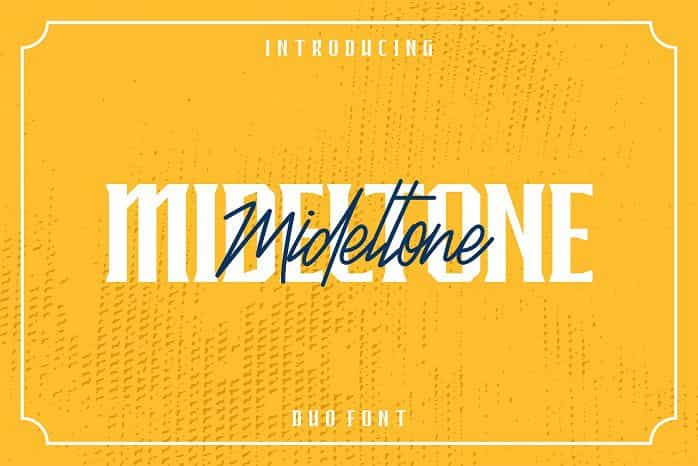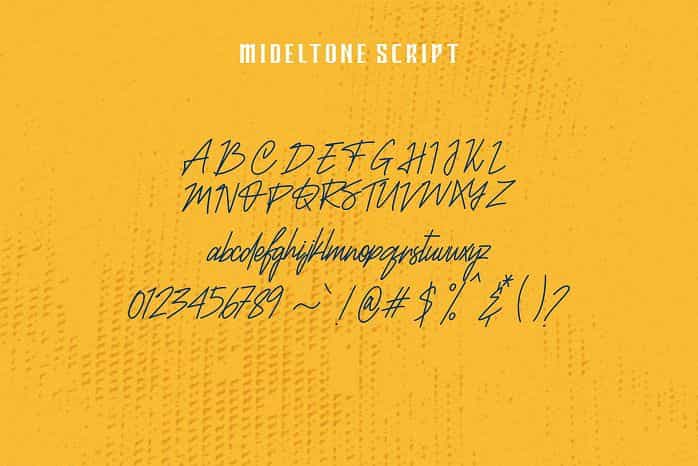
Mideltone Duo Font Introducing Midetone Duo Font. Mideltone duo fonts are 2 different fonts in one package with far different characteristics. This font is suitable for logos, posters, quotes, product labels, and other designs.